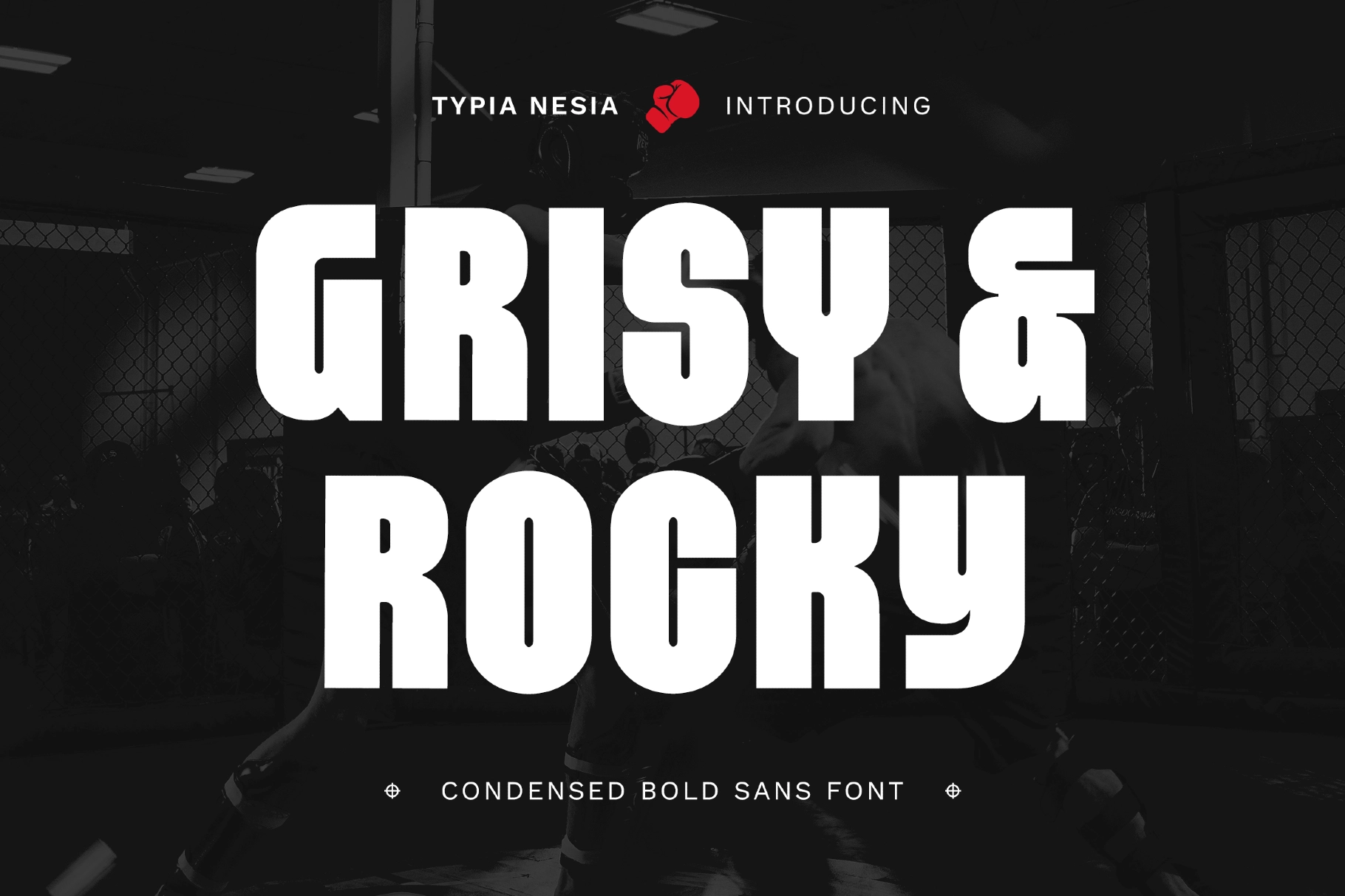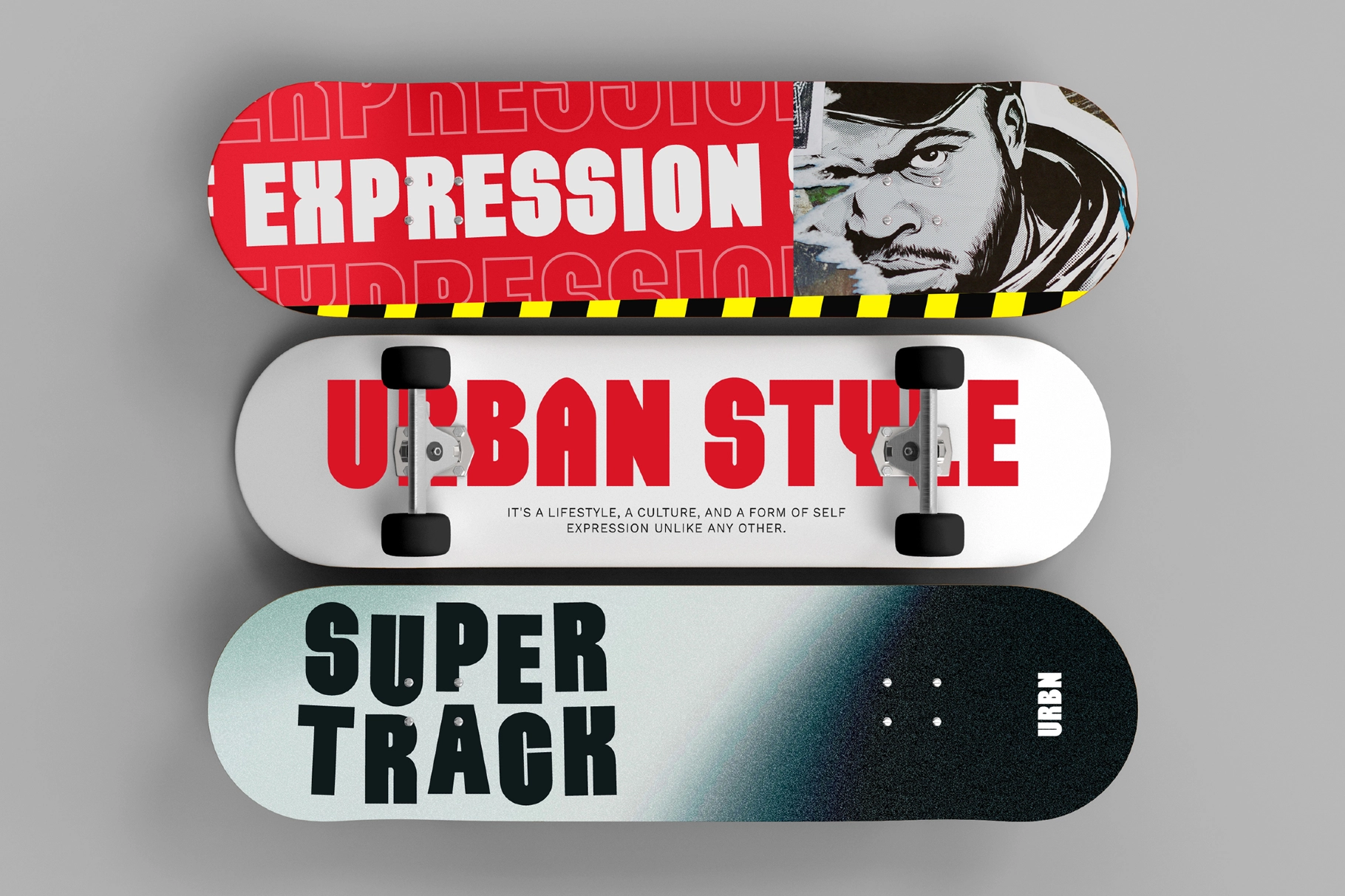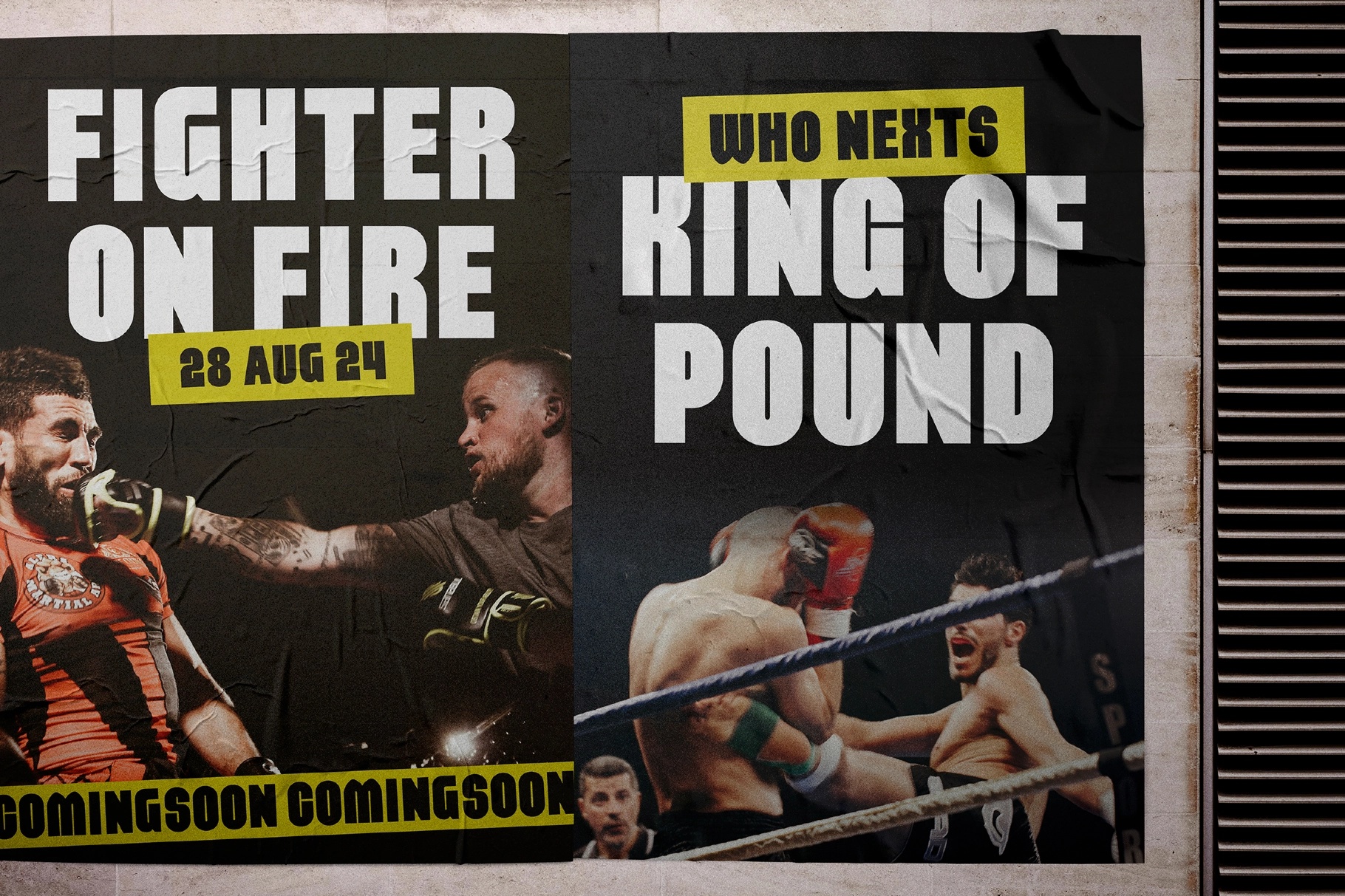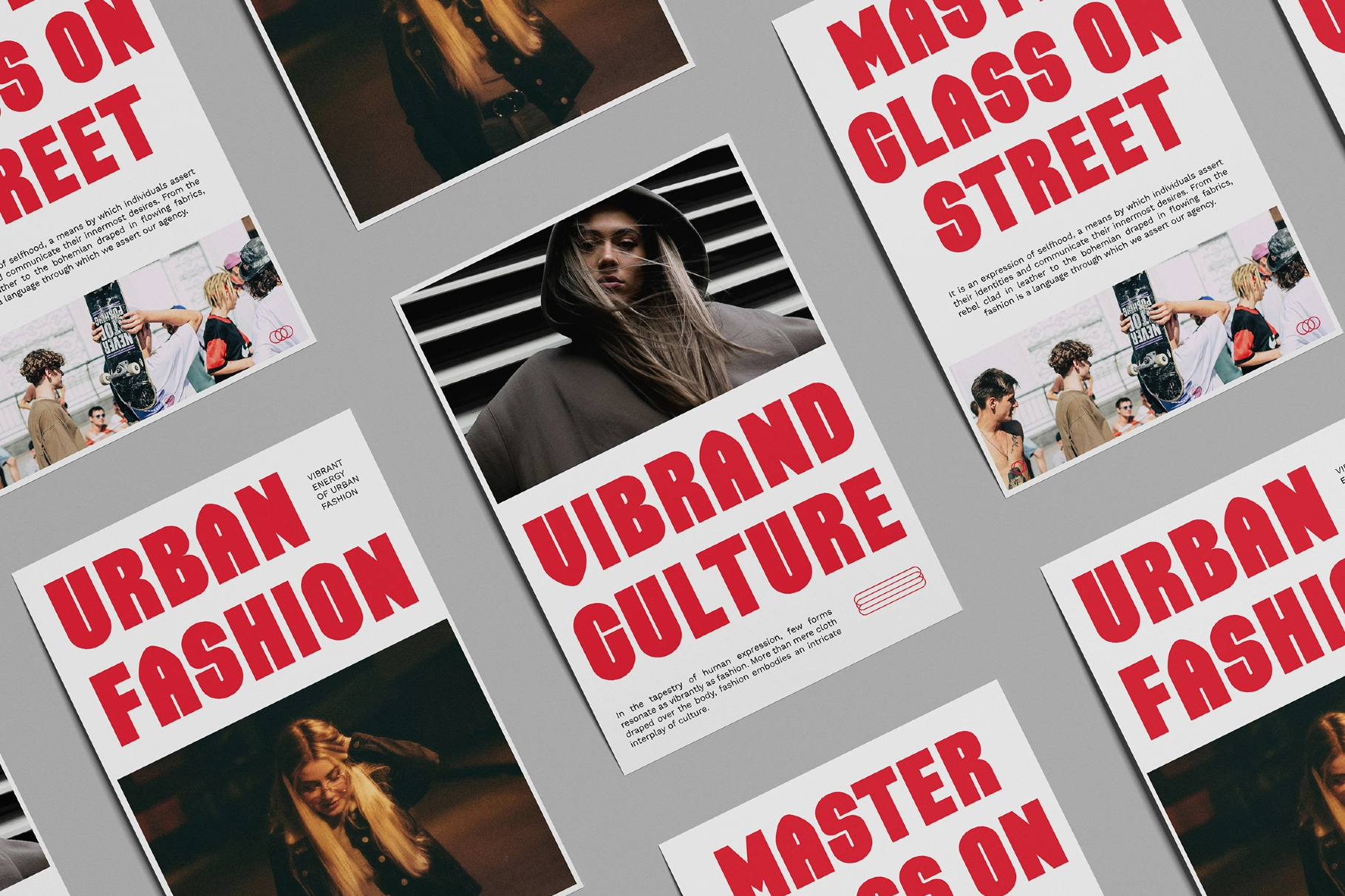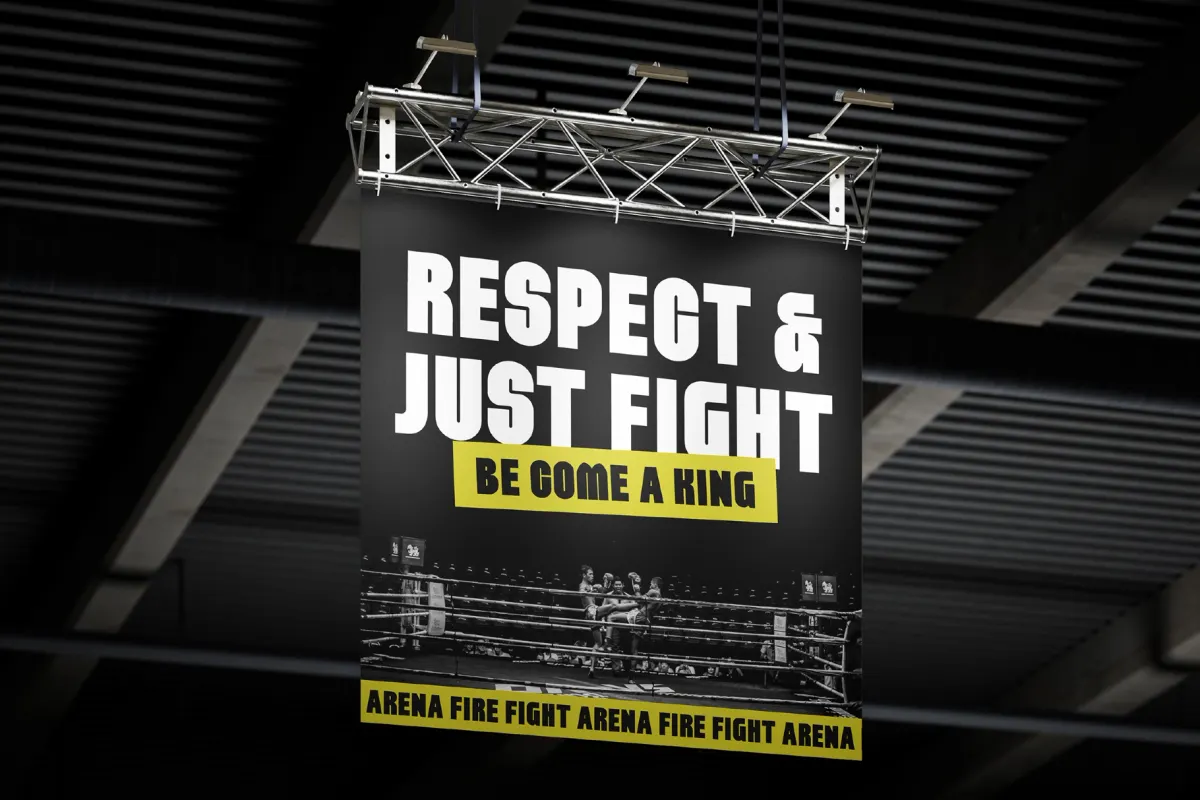
Grisy & Rocky - Condensesd Bold Sans Font
Meet Grisy & Rocky – Condensed Bold Sans Font , a powerful modern display typeface built for impact. With its strong condensed structure and bold sans serif character, this font delivers a confident, urban aesthetic that instantly grabs attention.
Designed to perform in high-visibility projects, Grisy & Rocky is perfect for headlines, posters, branding materials, logo design, product packaging, apparel graphics, event promotions, and gym signage. Its compact letterforms maximize space while maintaining clarity and strength, making it ideal for magazine covers, sports visuals, digital campaigns, and website headers.
Bold, modern, and unapologetically strong — Grisy & Rocky – Condensed Bold Sans Font brings contemporary edge and commanding presence to any creative project.
- Condensed bold sans serif style
- Strong, modern, urban display character
- Clean and sharp letterforms
- Perfect for headlines and large-scale typography
- Ideal for branding, sports, and promotional design